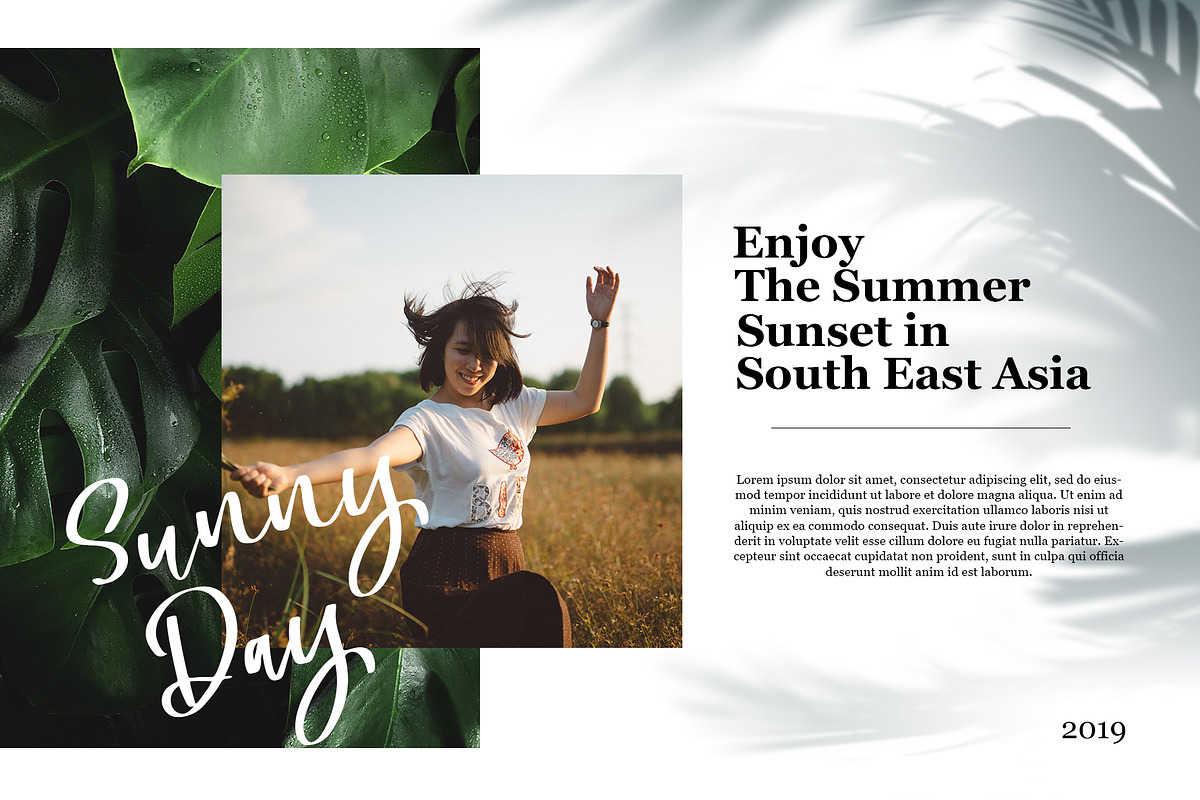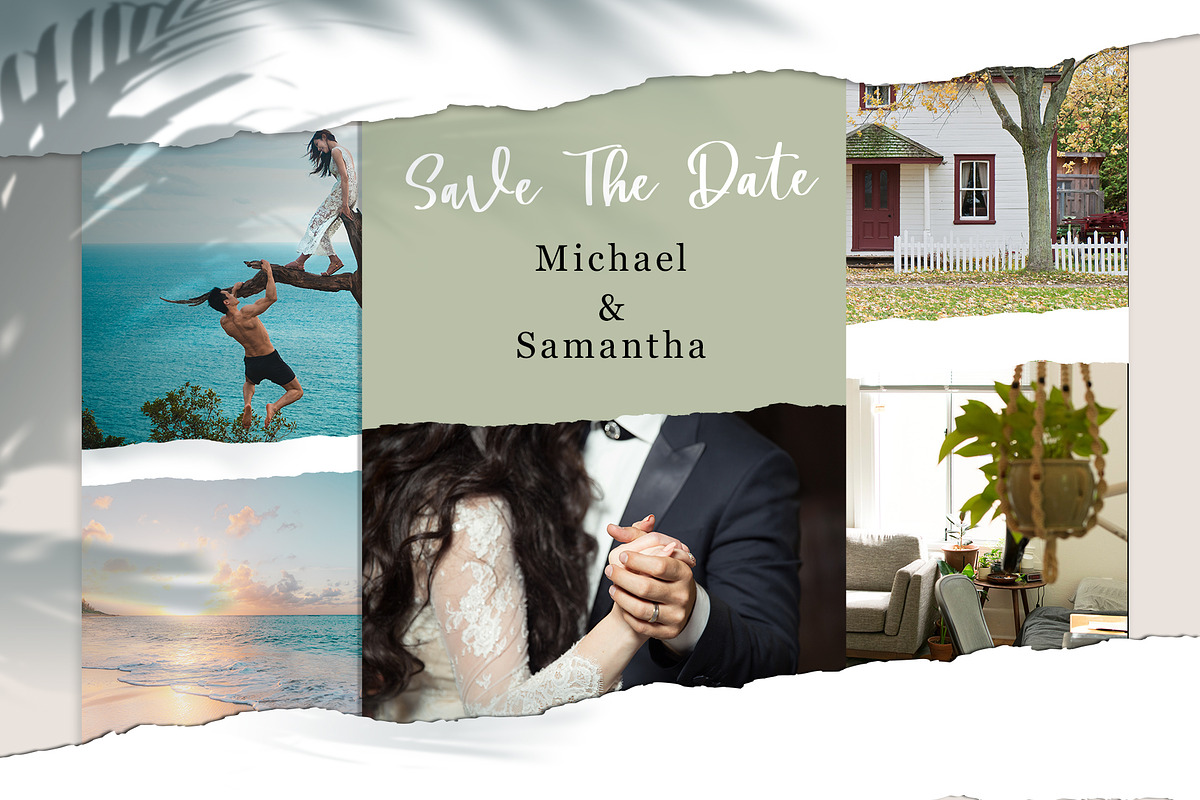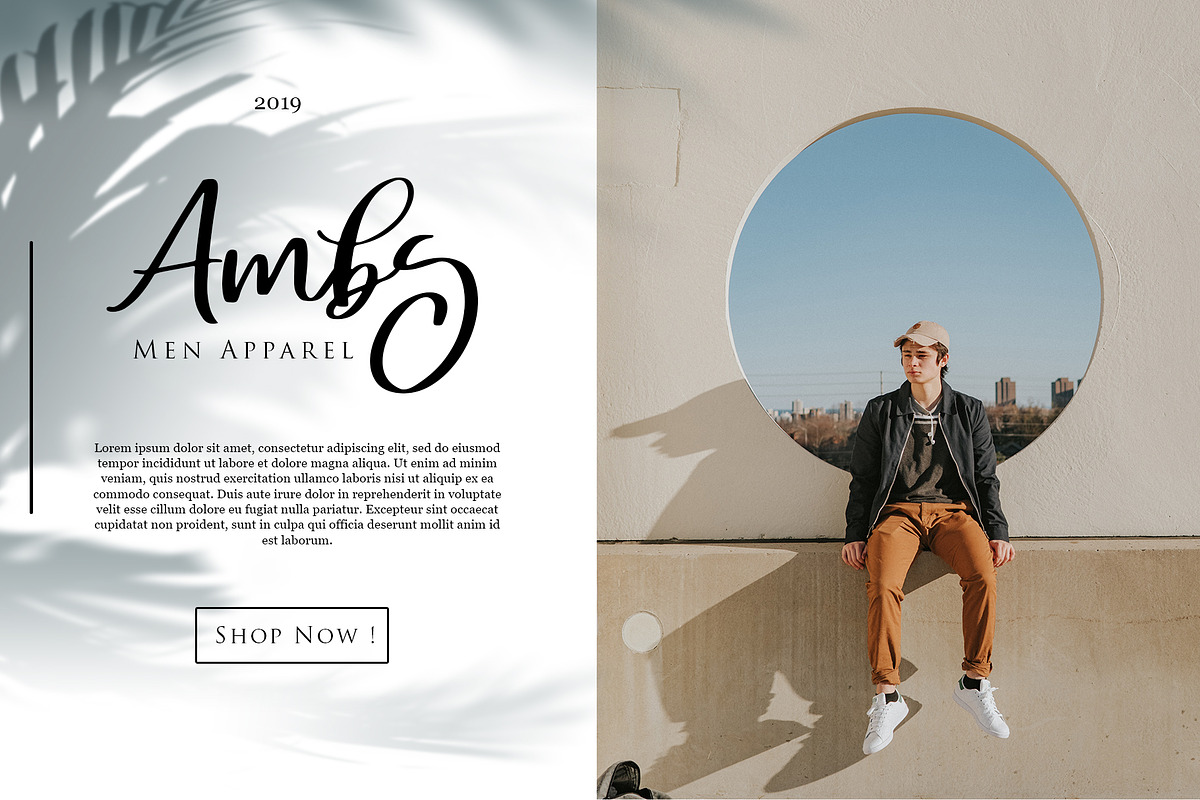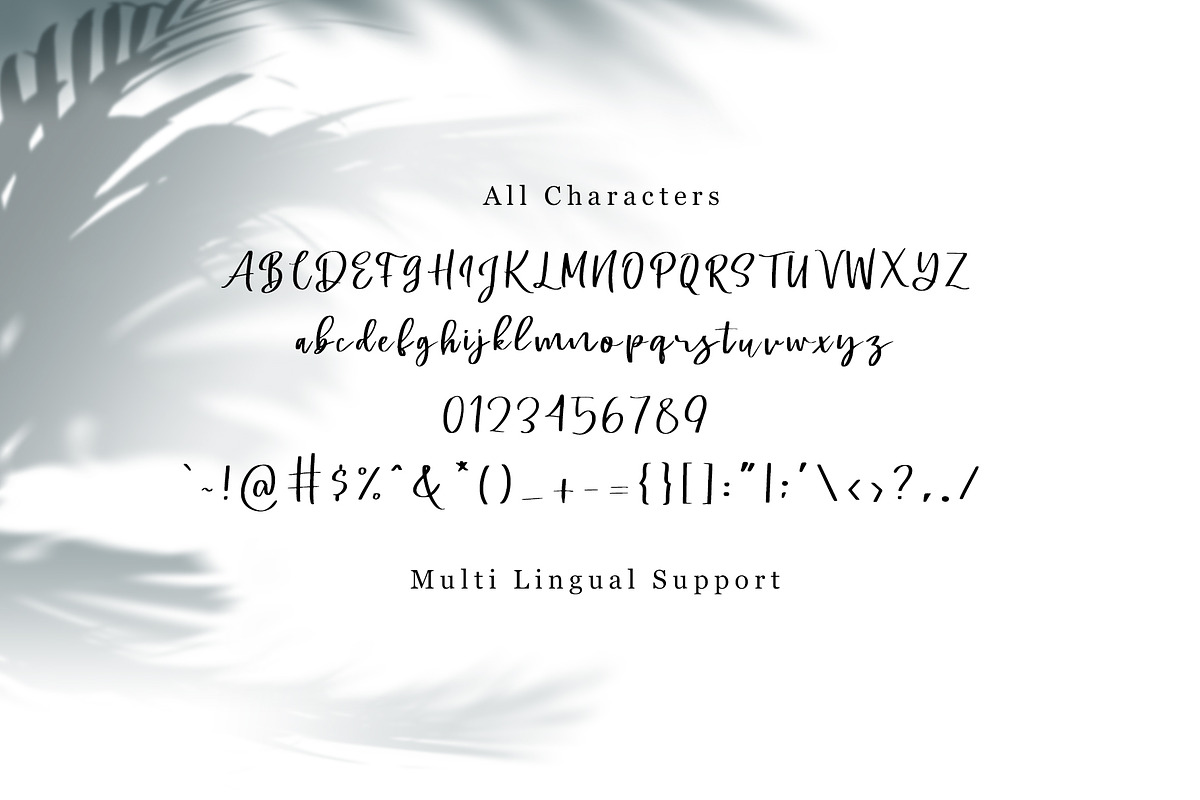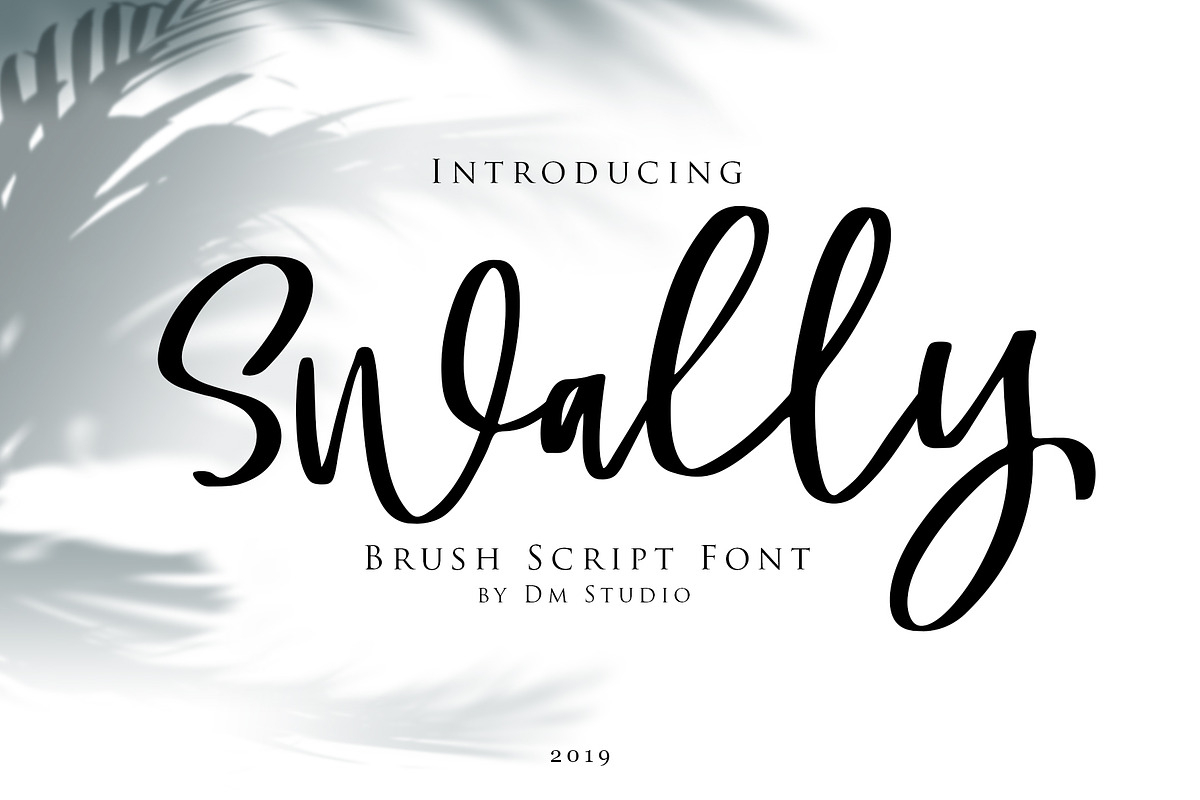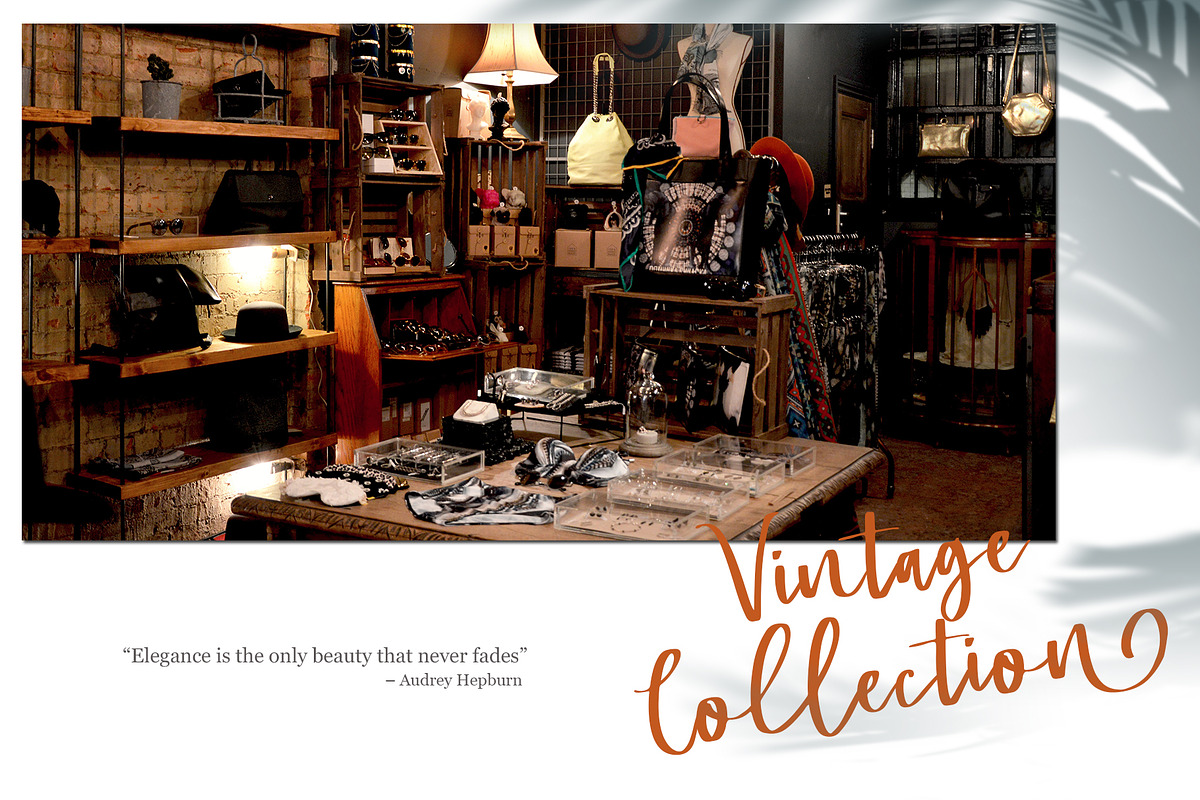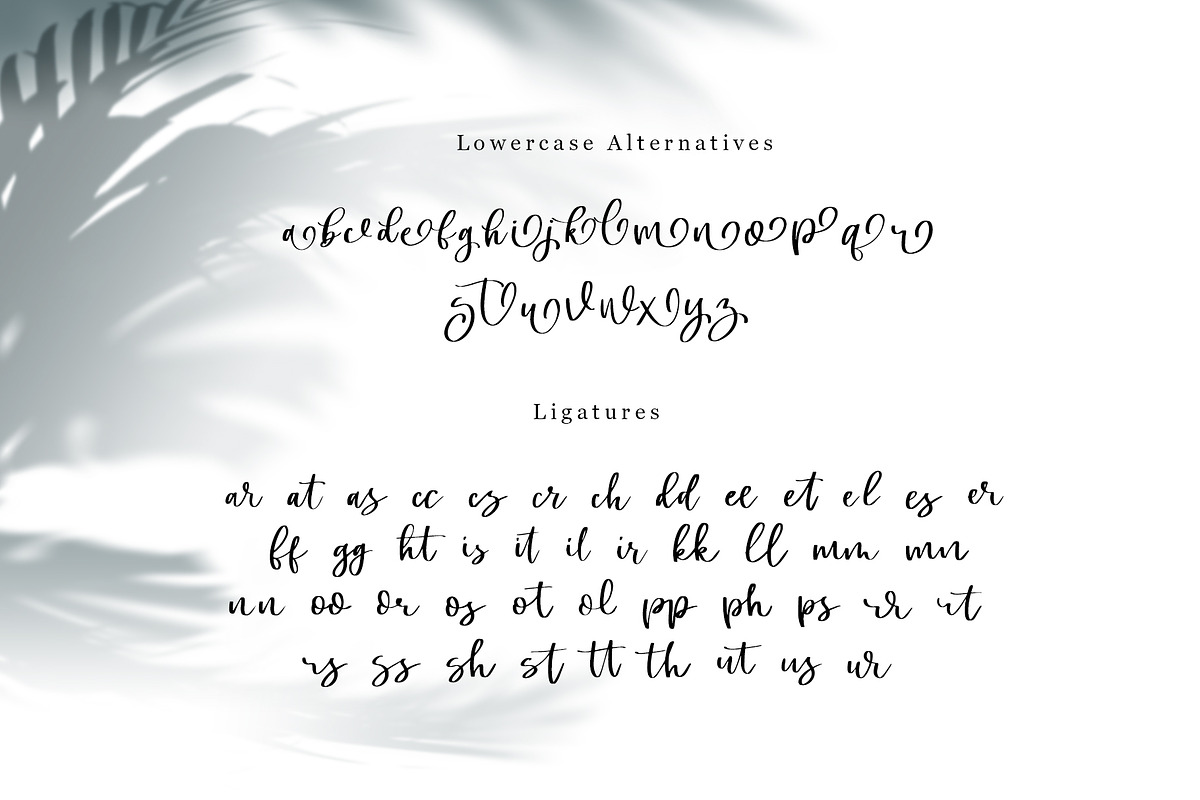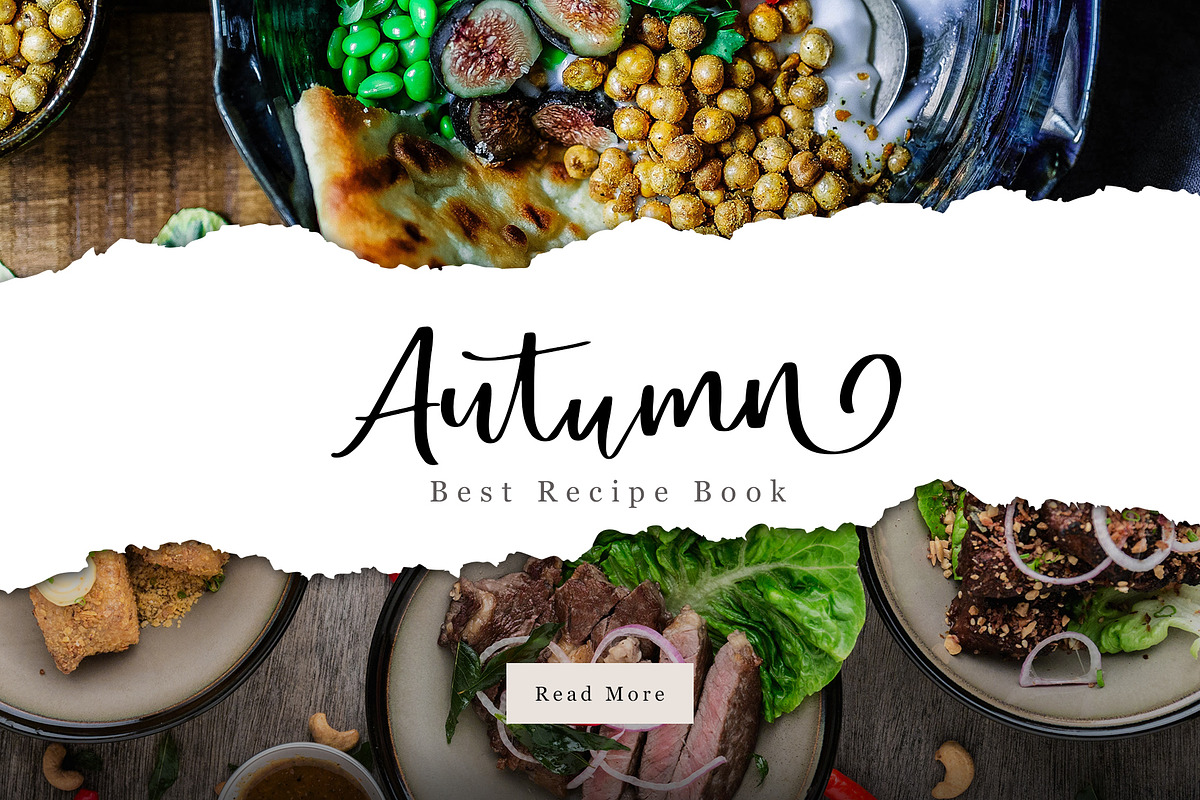
Swally - Brush Script Font
Introducing : Swally, the modern Brush Script Font.
This is an elegant, yet lovely modern digital brush script font. Make your design more catchy and stylish by using this font! Attach on your website template, flyer, product, invitation, promotion stuffs, craft, magazine, cover, quote, merchandise or even just to post on your social media!
Extra Ligatures & lowercase alternates